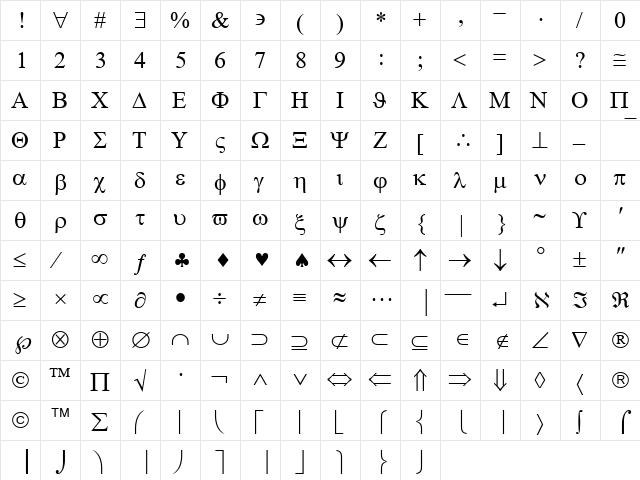
Symbol Regular
| Foundry | Monotype Typography |
| Designer | Monotype Type Drawing Office 1989 |
Design Context for Symbol Typeface
Symbol takes a measured approach to typography — its balanced proportions and neutral character make it a reliable workhorse for both digital and print work.